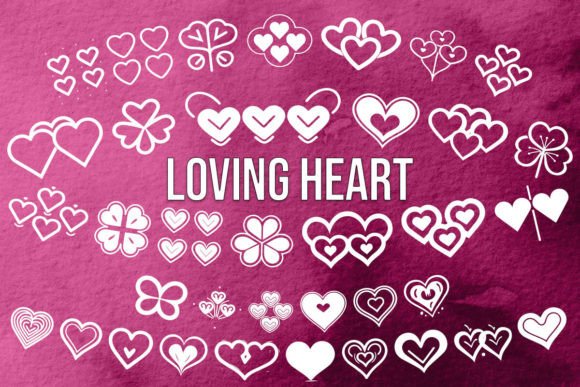
Introducing the Loving Heart Font Collection, a mesmerizing array of 36 exquisitely designed heart symbols that will ignite a fire of passion in your creations. Created by the talented MOMAT THIRTYONE, these heart-shaped alphabets are not just fonts; they are a language of love, waiting to be explored.
From A to Z, each letter in the Loving Heart Font Collection is meticulously crafted to evoke deep emotions. Every stroke, every curve, tells a story of affection and tenderness, making this collection a heartfelt choice for any project.
Unleash your imagination and experience the limitless possibilities with these versatile Heart Dingbats Fonts. Whether you're designing heartfelt invitations, crafting a captivating logo, or producing stunning digital art, this collection has got you covered. Let your creativity flow and express the language of love with ease.
What sets the Loving Heart Font Collection apart is the attention to artistic detailing. Each heart symbol captures the essence of emotions, radiating romance and enchantment. With every design, you can infuse your projects with an extra touch of elegance and warmth, making them truly unforgettable.
Embrace the power of hearts and elevate your design game to new heights with the Loving Heart Font Collection. Whether you're a professional designer or a DIY enthusiast, these fonts will take your creations from ordinary to extraordinary. Let the magic of love guide your artistic journey and watch as your projects come to life with heartfelt beauty.